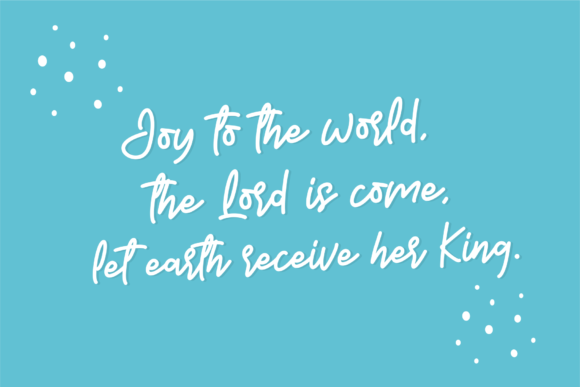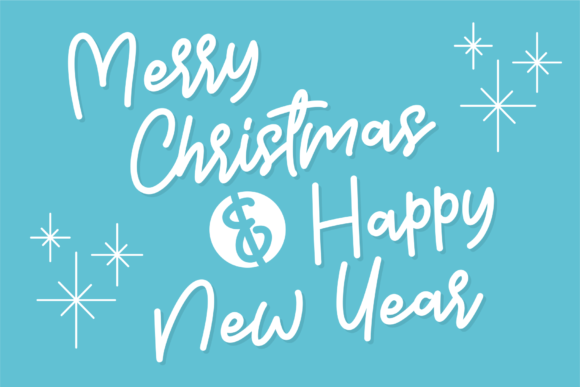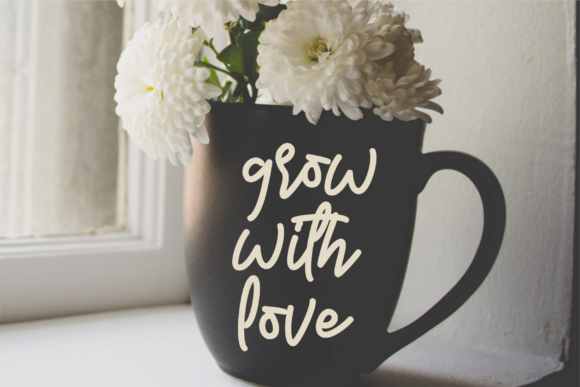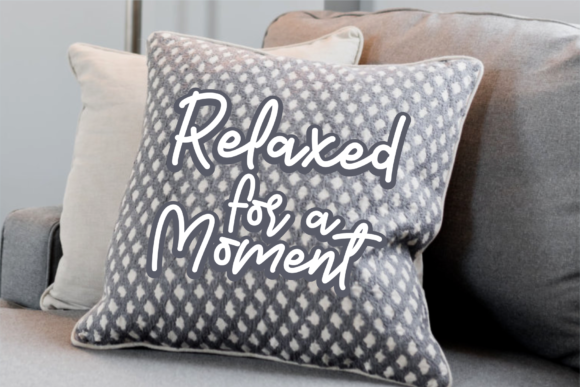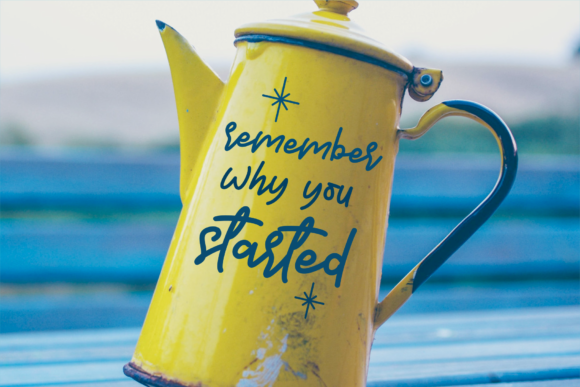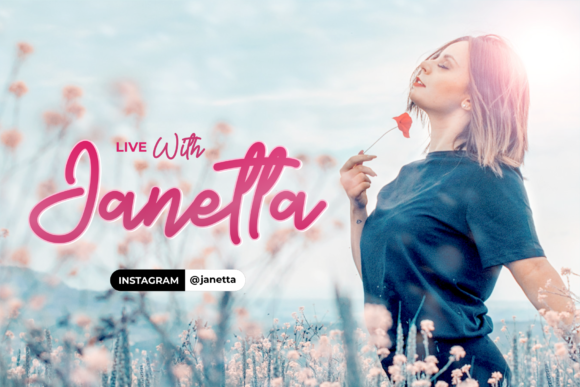
Get into the Holiday Spirit with A Good Holiday Font
It’s that time of the year again – the moment when your creativity flows like hot cocoa on a cold winter’s night. You’re browsing through craft stores, searching for the perfect font to make your holiday projects stand out. And then, it hits you – the perfect combination of elegance and whimsy that screams “Holiday Cheer!”
A Good Holiday Font is the perfect companion for your creative endeavors. This delicate script font is designed to add a touch of sophistication to your craft projects, Christmas decor, farmhouse signs, posters, and even t-shirts. Its simplicity and beauty make it a valuable asset for designers looking to create unique and eye-catching designs.
A Good Holiday Font Key Features
- Unique Characteristics: A Good Holiday Font features a unique blend of modern and traditional elements, making it perfect for creating a festive atmosphere in holiday-themed designs, such as greeting cards, posters, and packaging.
A Good Holiday Font Review
I recently had the chance to work with the “A Good Holiday Font” and I’m here to share my honest thoughts on it.
- Unique Design: This font has a distinct and quirky personality that’s sure to stand out.
- Perfect for Seasonal Content: Its festive vibe makes it ideal for holiday-themed projects, especially for Christmas and New Year’s Eve.
- Good Legibility: Despite its decorative nature, the font remains easy to read, even at smaller sizes.
- Limited Versatility: While it’s perfect for the holiday season, it may not be the best choice for year-round projects.
- No Extended Character Set: If you need to support languages with non-Latin scripts, you might need to look elsewhere.
A Good Holiday Font is a solid choice for anyone looking to add some festive flair to their designs. While it may not be suitable for every project, its unique design and good legibility make it a great option for holiday-themed content. Just be aware of its limitations and use it wisely.
A Good Holiday Font is perfect for:
Creating festive holiday cards and invitations.
Designing holiday-themed social media graphics and ads.
Adding a touch of holiday cheer to your website and blog.
Creating custom holiday gift tags and labels.